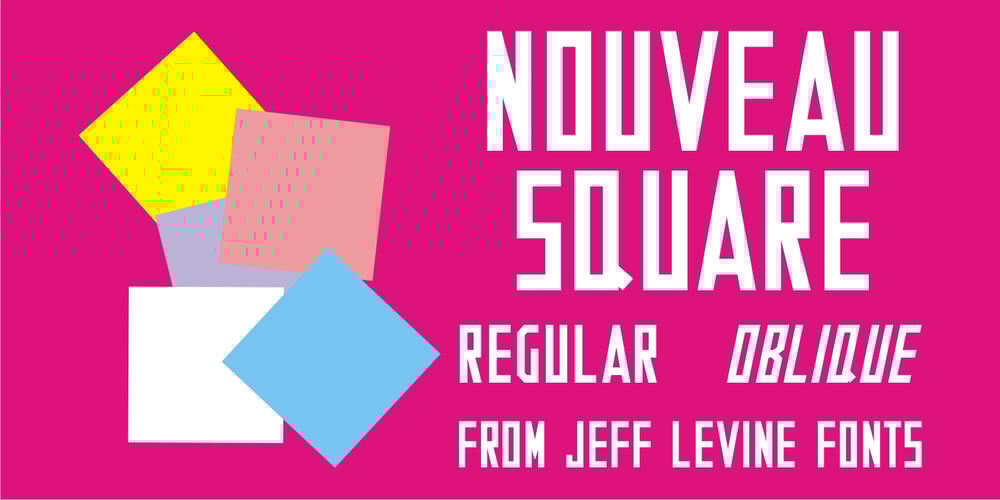
Nouveau Square JNL Font Family was designed by Jeff Levine and published by Jeff Levine. Nouveau Square JNL contains 2 styles and family package options. Sheet music for the 1915 song “Is There Still Room for Me Neath the Old Apple Tree” had the title hand-lettered in a condensed, square sans serif. Although far from the more decorative lettering styles of the Art Nouveau period, this type of simple understatement was also a popular choice for the illustrators of the day. It is presented digitally as Nouveau Square JNL in both regular and oblique versions.